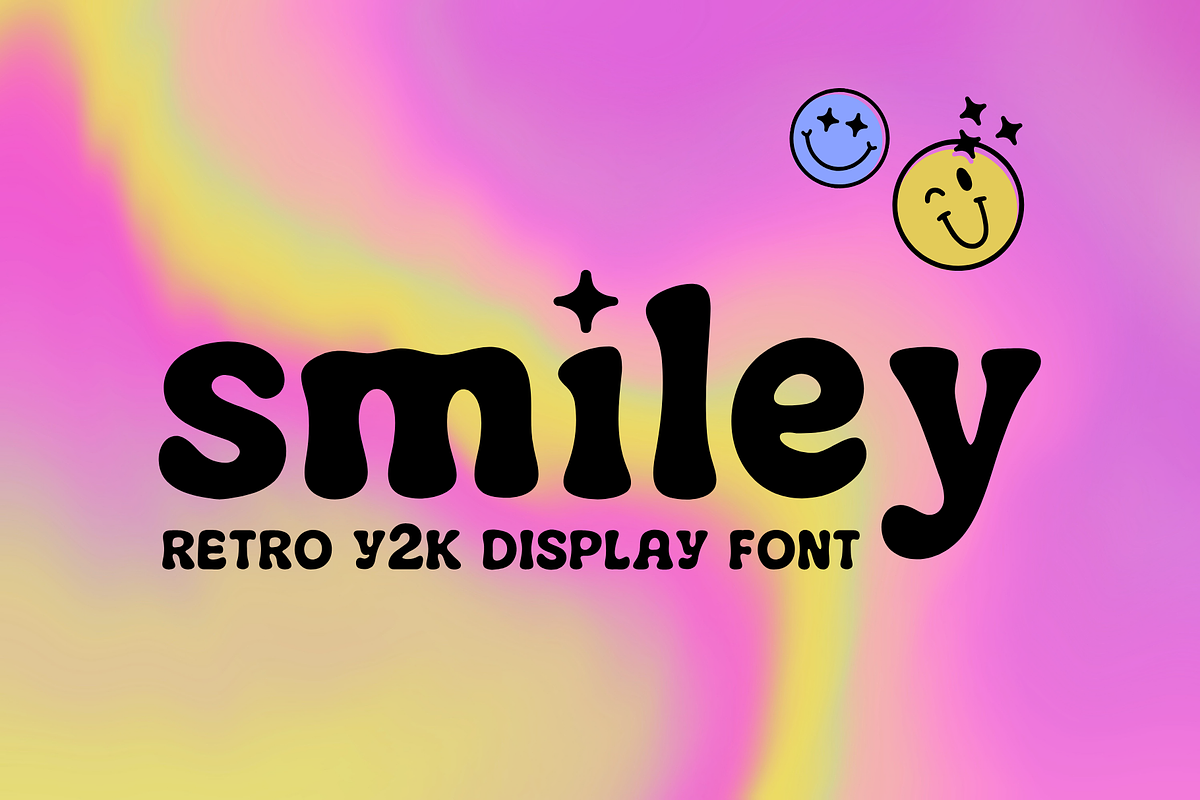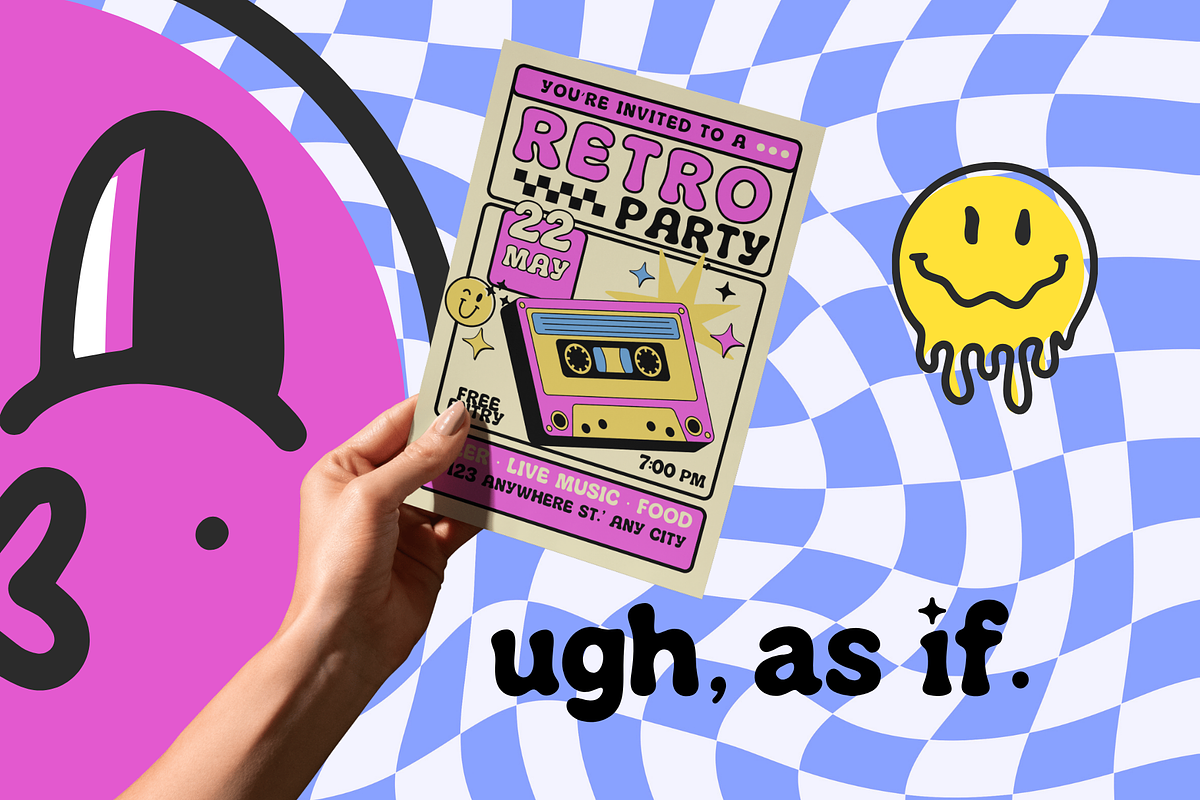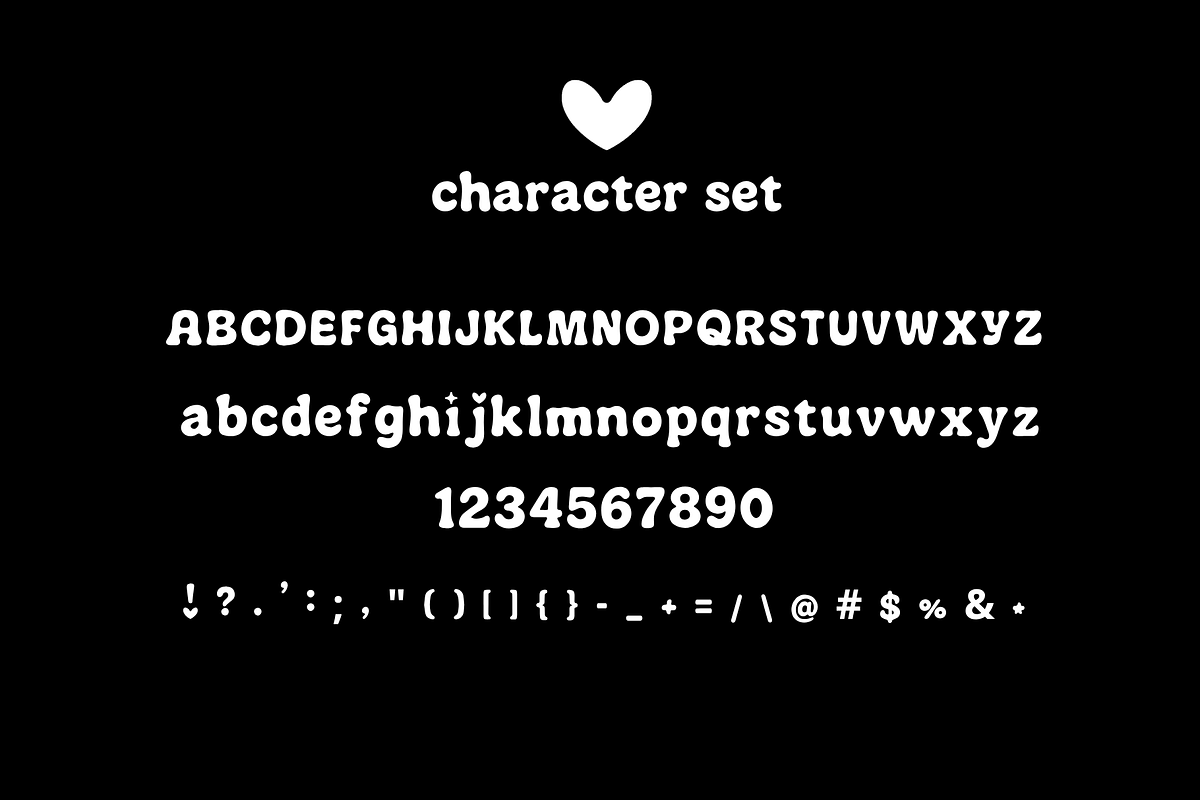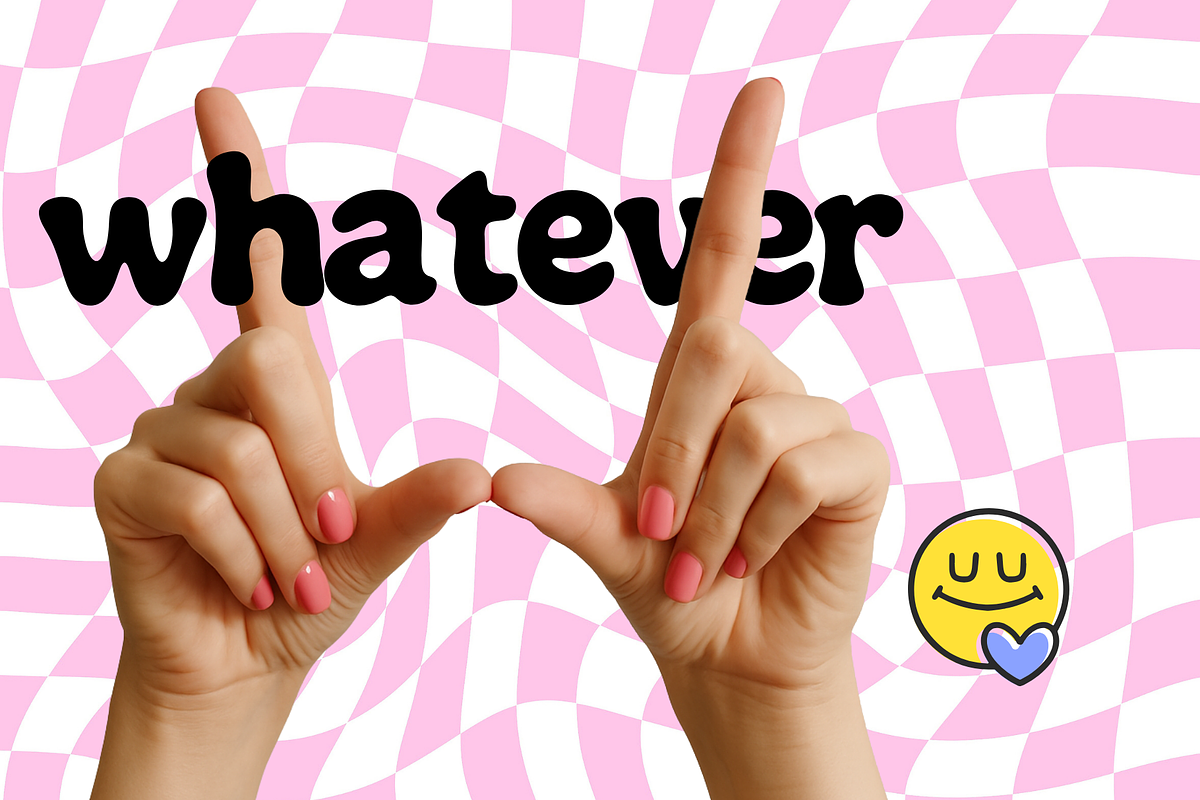
Smiley – Retro Y2K Display Font
Smiley is a retro, playful display font that brings back all the 90s and early 2000s vibes. With smooth curves, rounded edges, and a carefree personality, Smiley is perfect for bold headlines, nostalgic branding, and creative projects that need instant personality and charm.
Whether you’re designing throwback-inspired packaging, creating scroll-stopping social posts, or adding that perfect Y2K touch to your branding.
Perfect For: ✔ Logos and branding ✔ Packaging and labels ✔ Stickers and merch ✔ Instagram graphics ✔ Retro quotes & posters